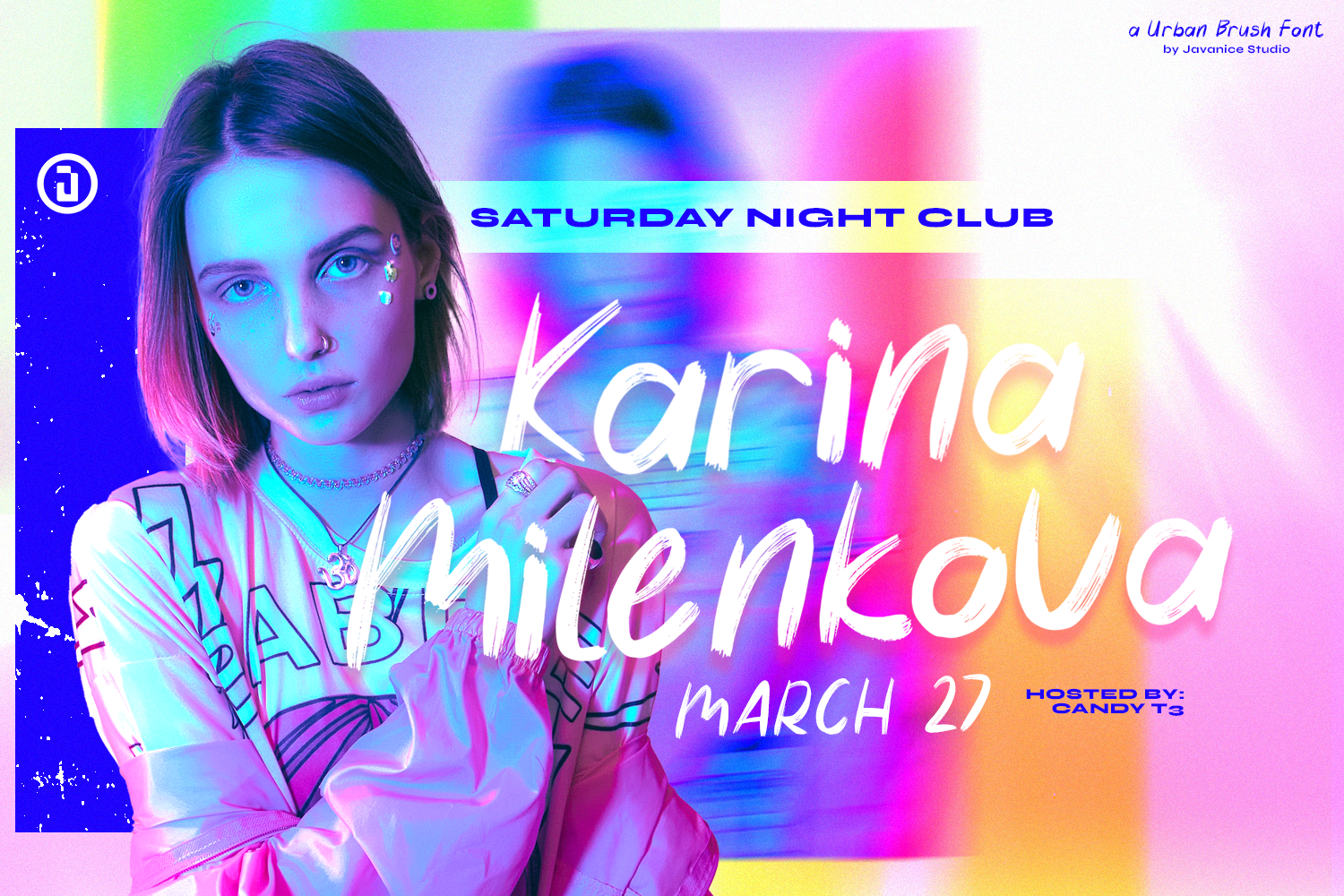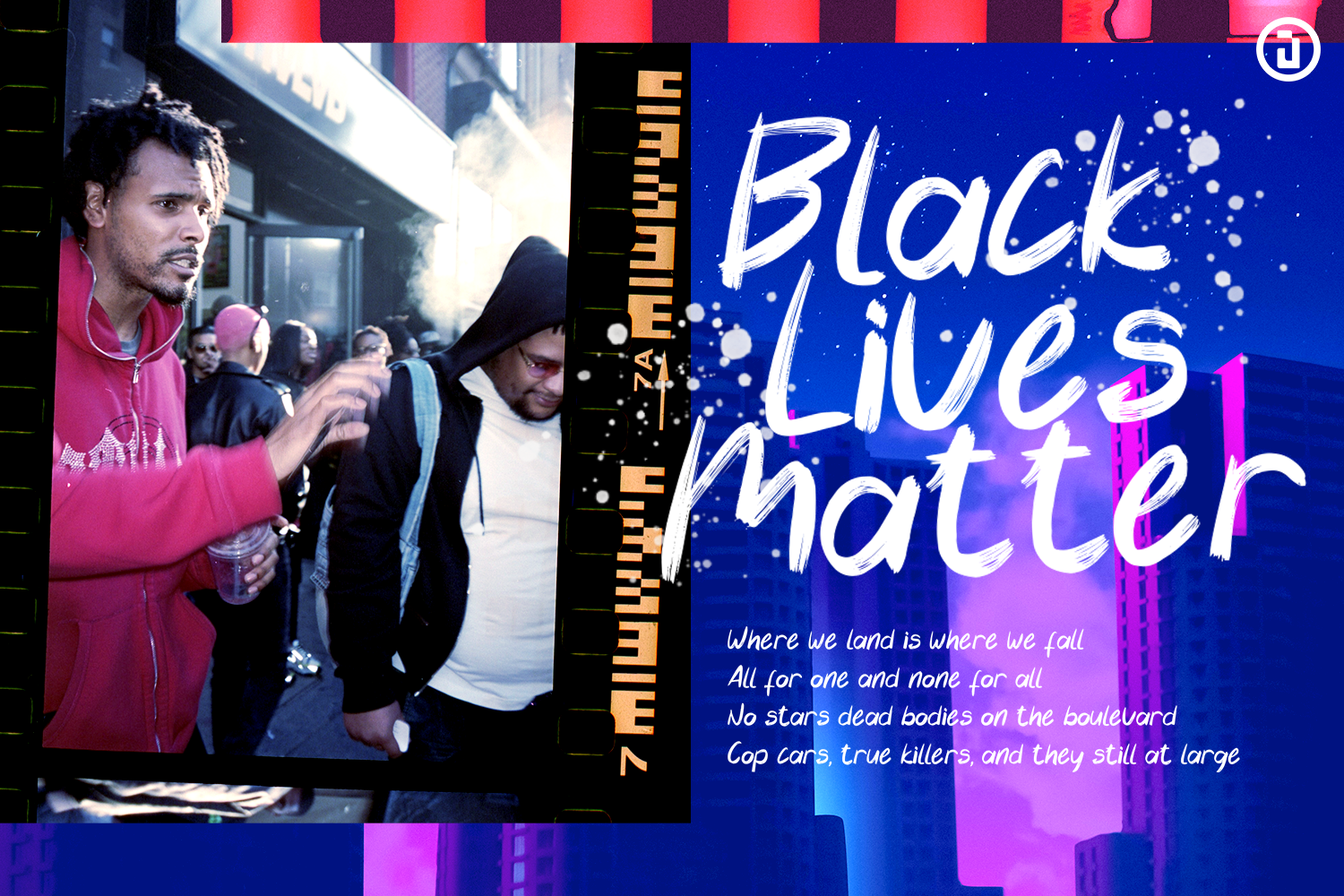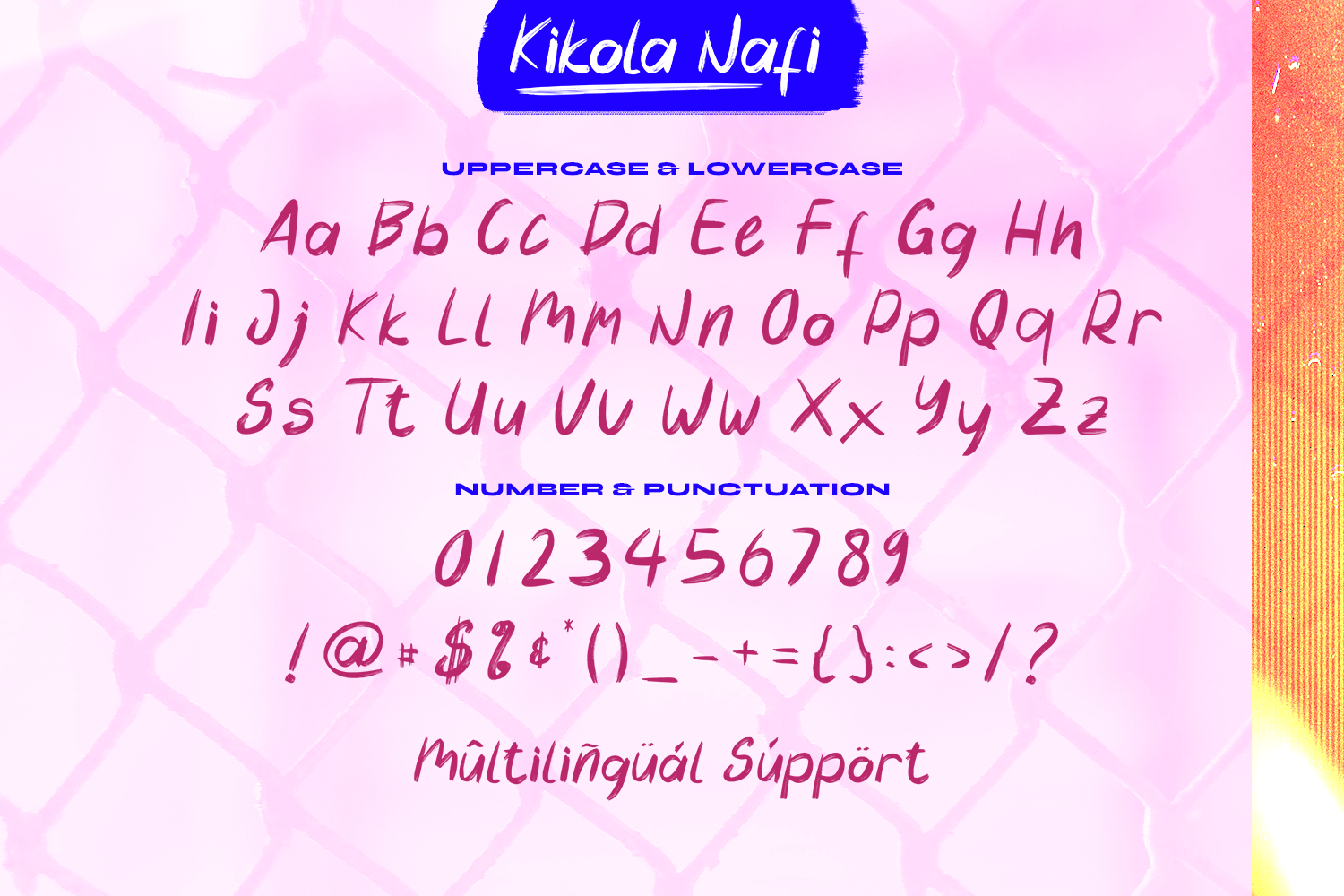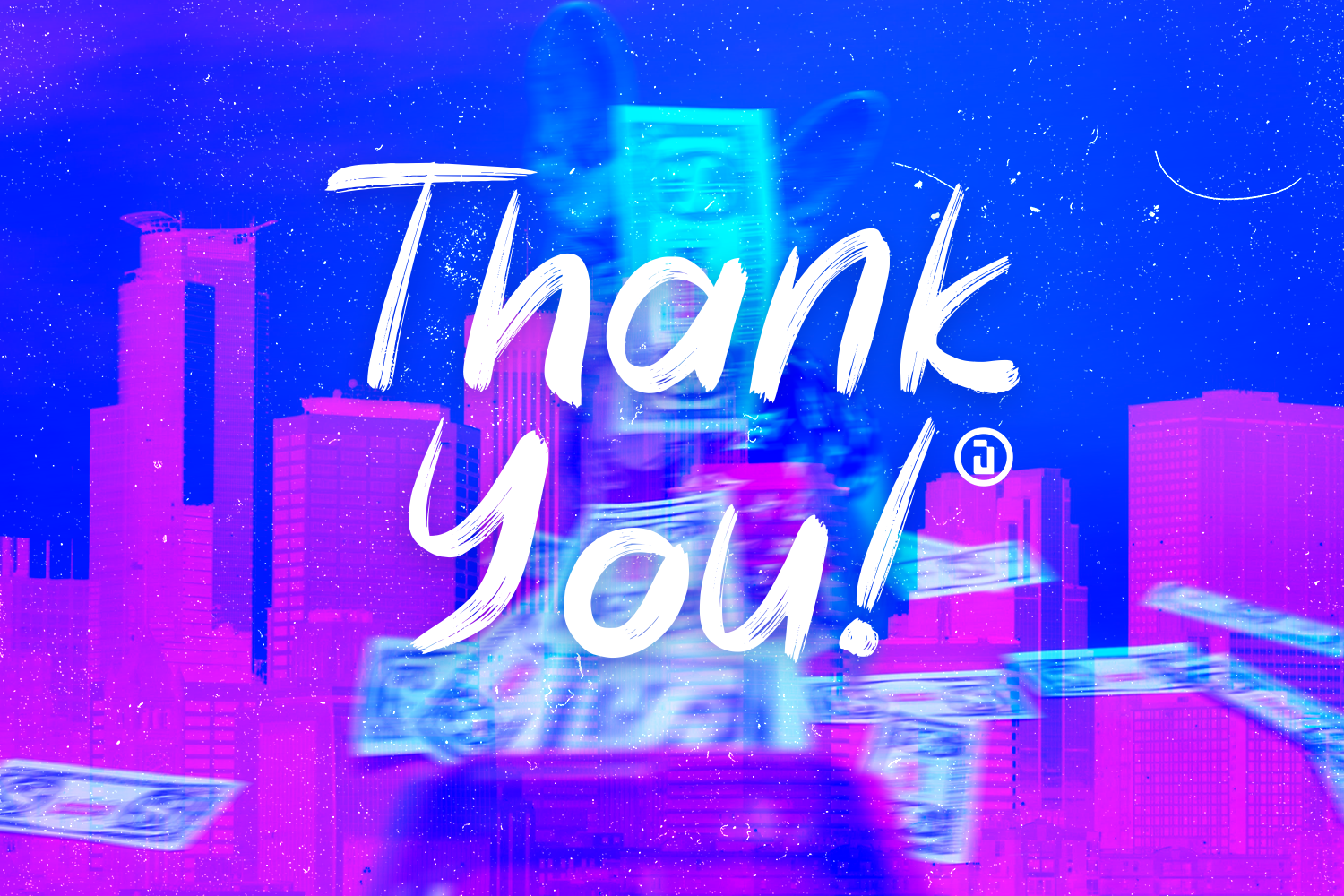
Kikola Nafi Font
Kikola Nafi Brush Font
This is a brush font. Kikola Nafi is perfect for branding project, apparel, labels, magazines, books, greeting / wedding cards, packaging, fashion, make up, stationery, and any type of advertising purpose or just used to express words above the background.